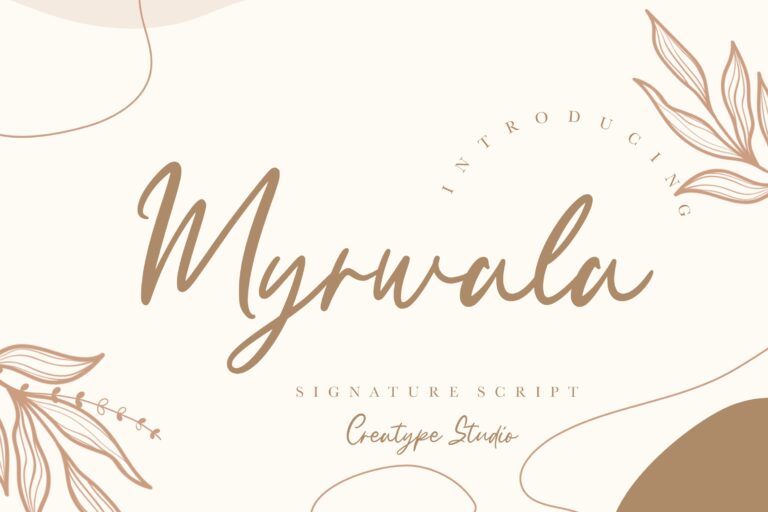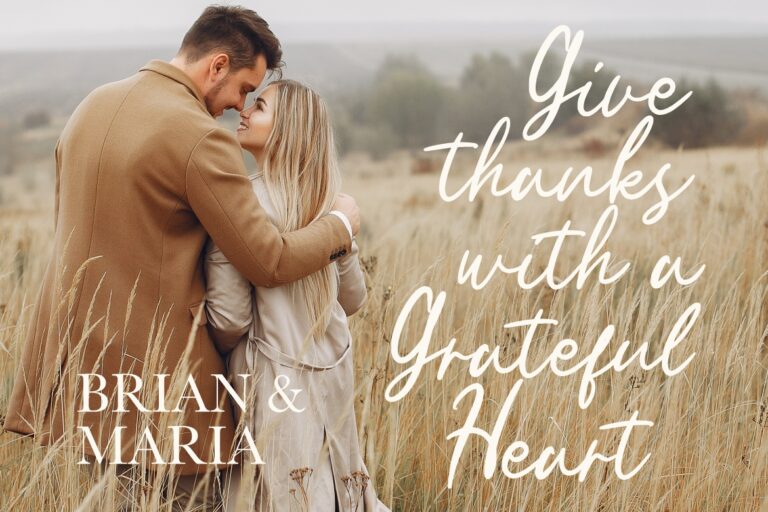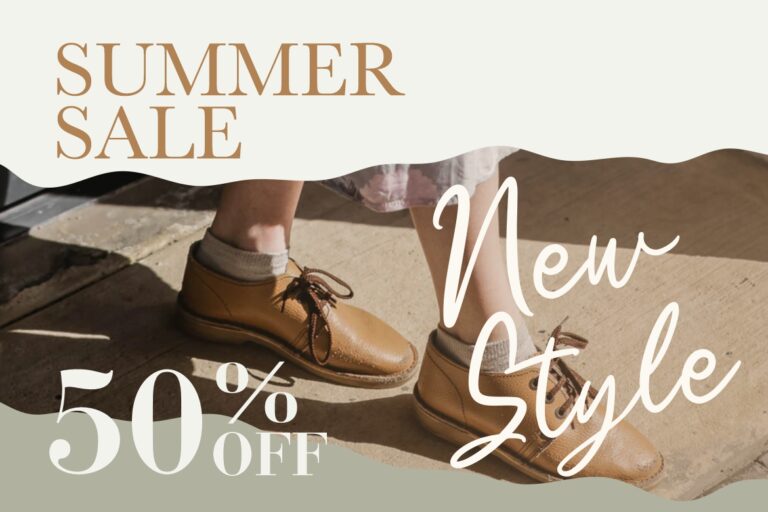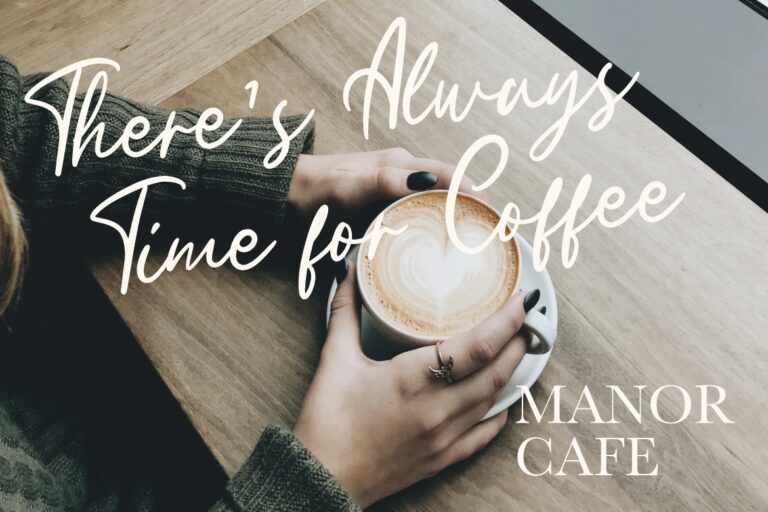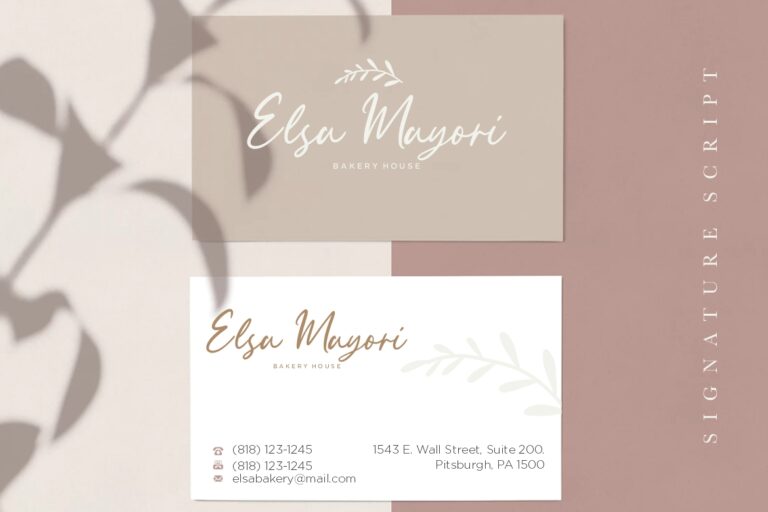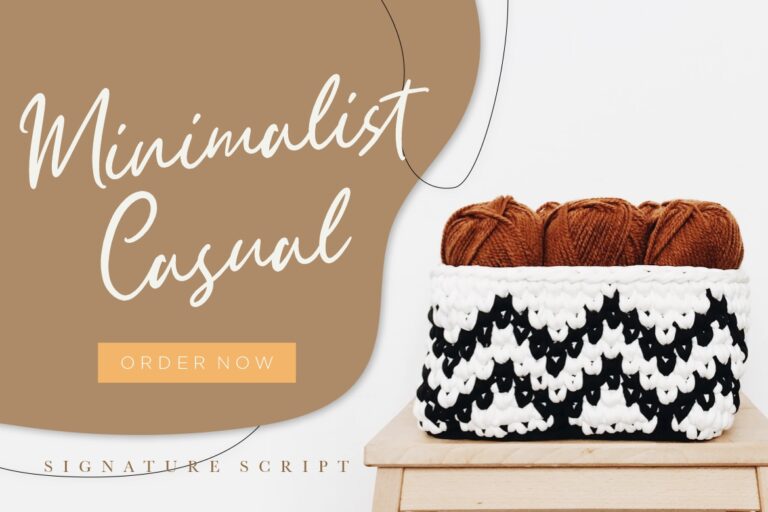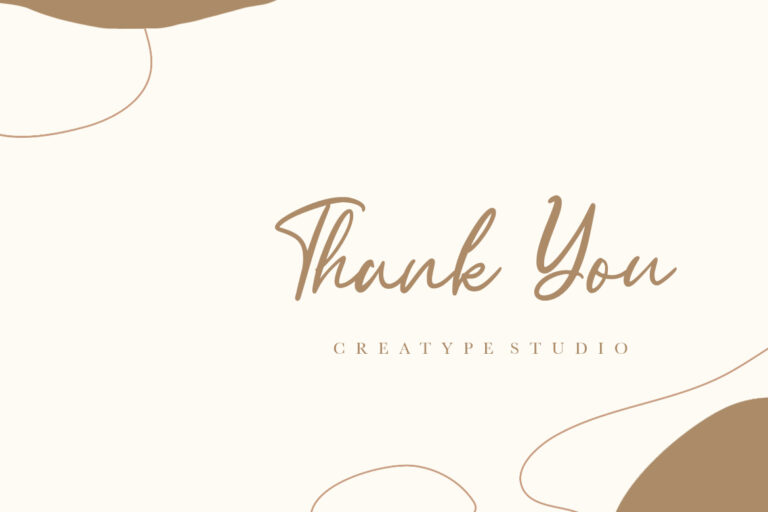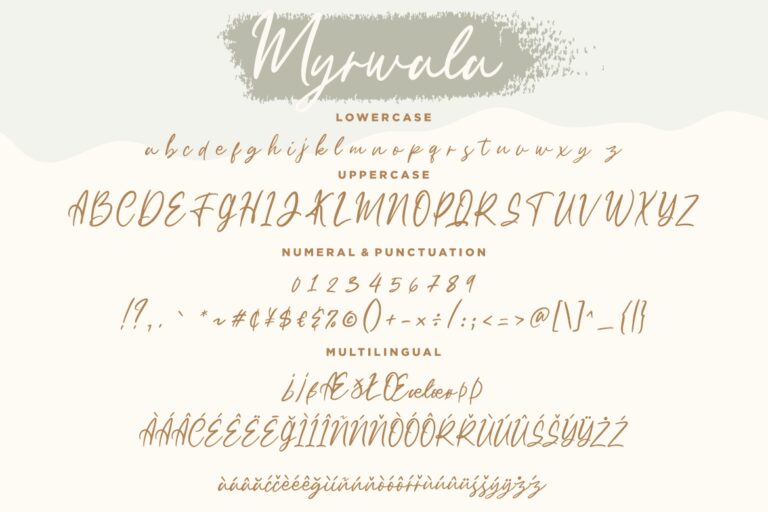
Myrwala is signature script font with elegant and classy style for your perfect project.
Myrwala would perfect for photography, watermark, social media posts, advertisements, logos & branding, invitation, product designs, label, stationery, wedding designs, product packaging, special events or anything that need handwriting taste.
Myrwala Signature Script Font